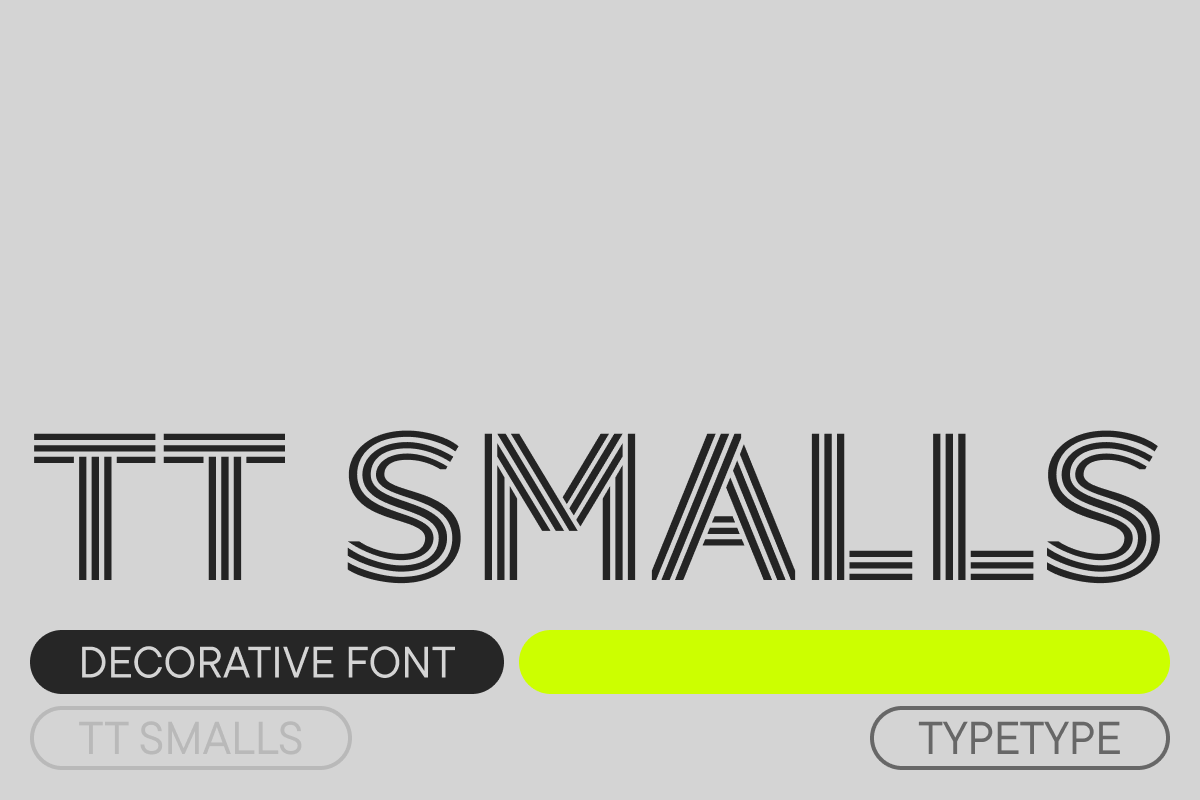
TT Smalls ExtraBold
TT Smalls is a decorative font that makes it easy to attract attention. Use it to design expressive headings, in the packaging design or to highlight text on a site. Be sure that the text set in TT Smalls will arouse the interest of the audience. The font contains only uppercase characters in the inline version, and glyph designs are based on a geometric sans serif. With an increase or decrease in weight, the number of strokes in the font goes up or down, respectively.